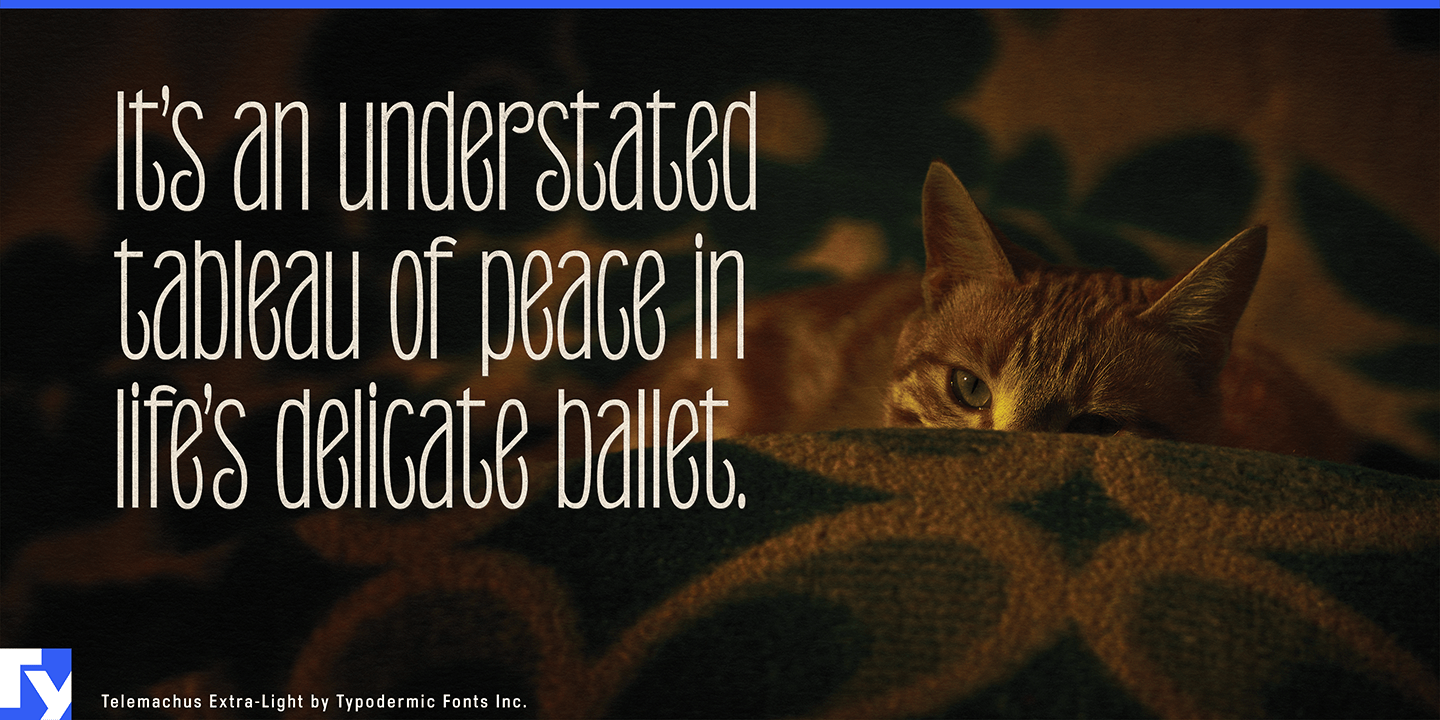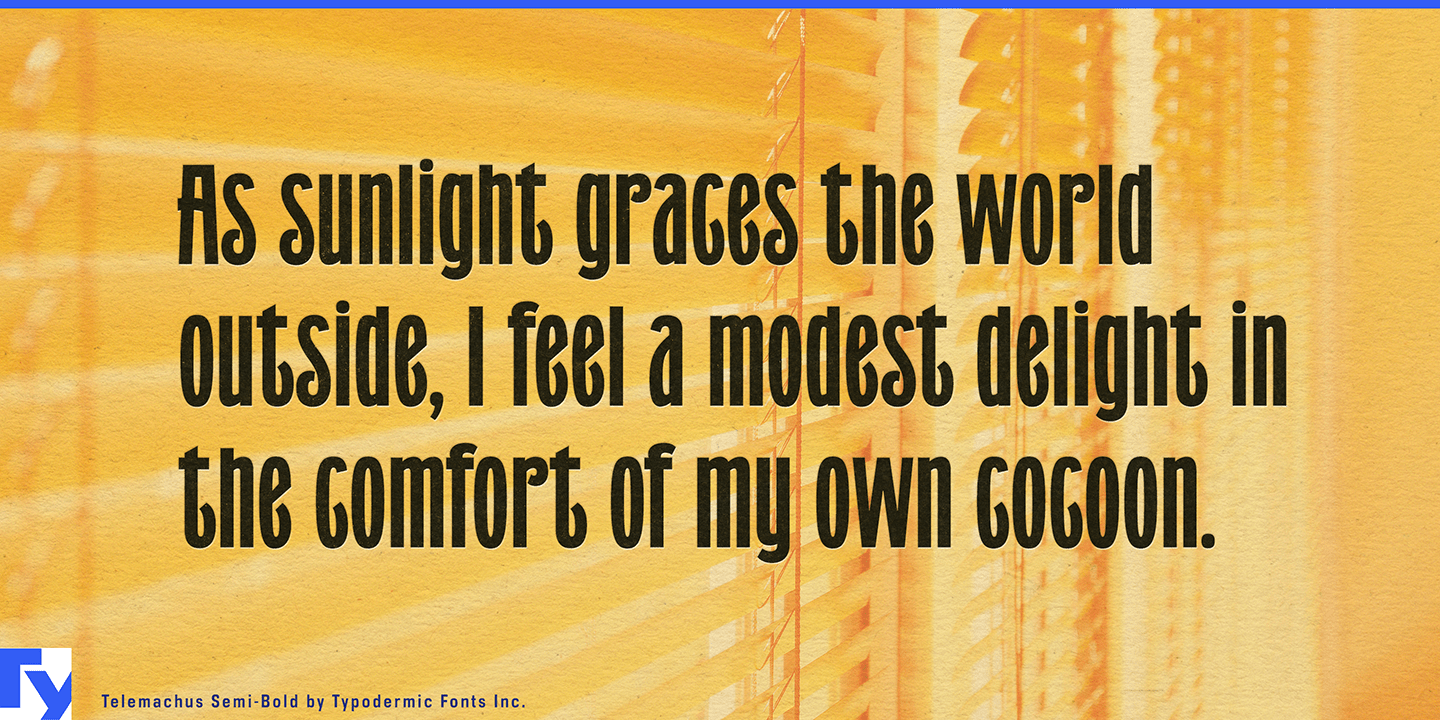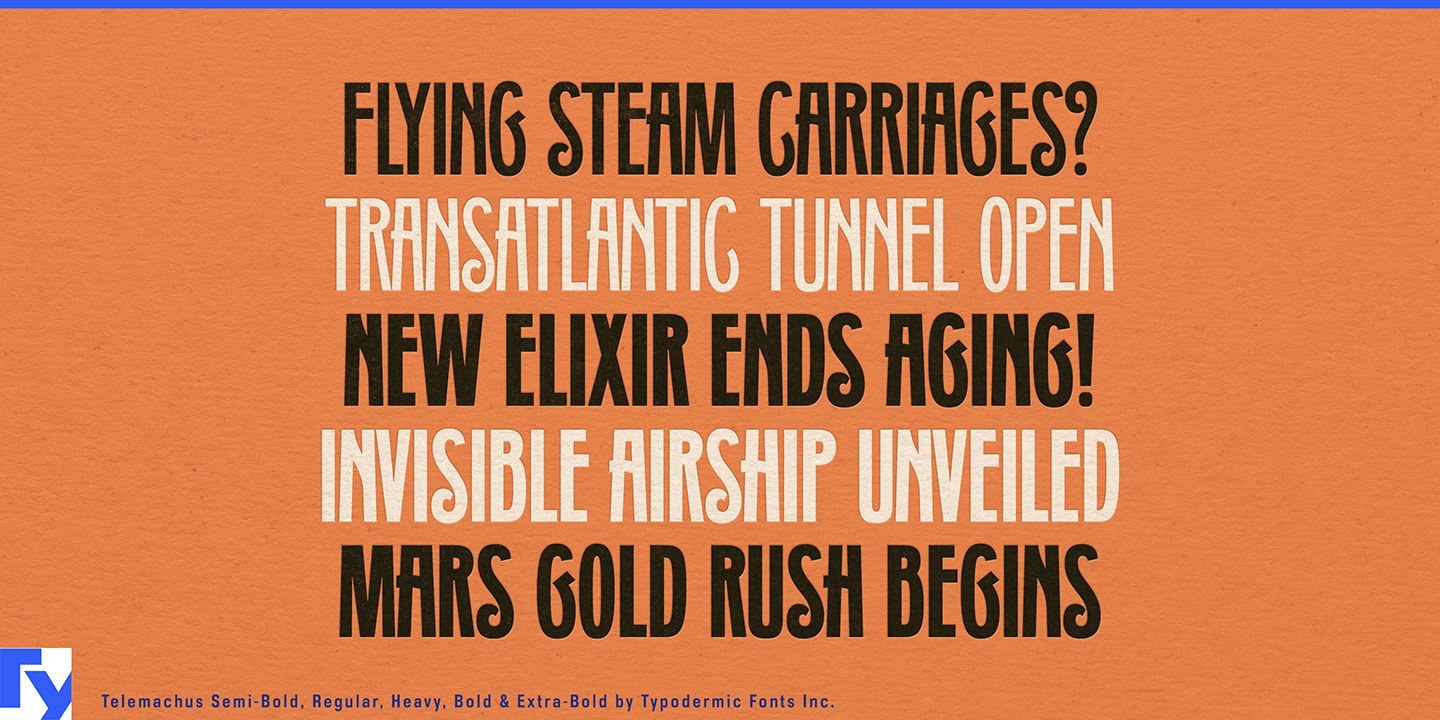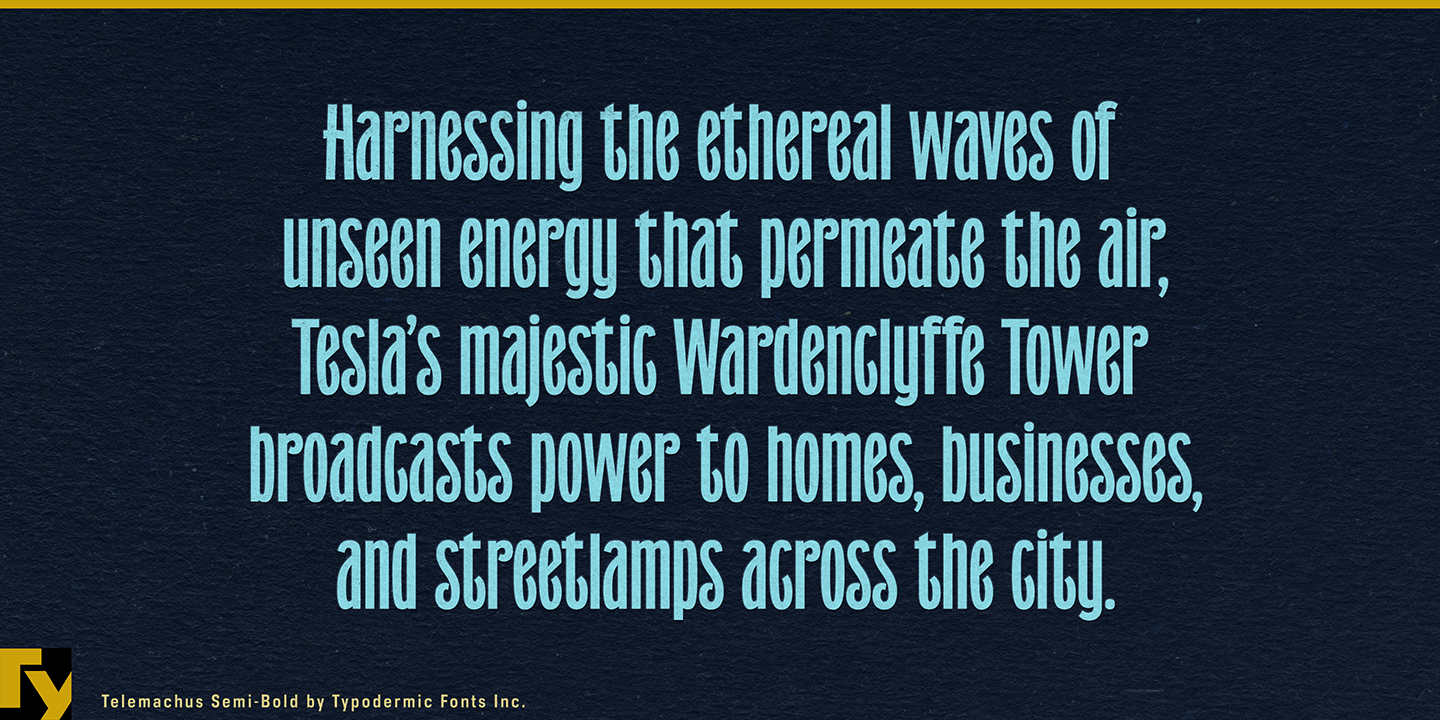
About Telemachus
Step into the world of Telemachus, where typography becomes a time-traveling adventure. This masterful creation from Typodermic Fonts doesn’t just nod to the past—it shakes hands with it, then strolls confidently into the present. Imagine…